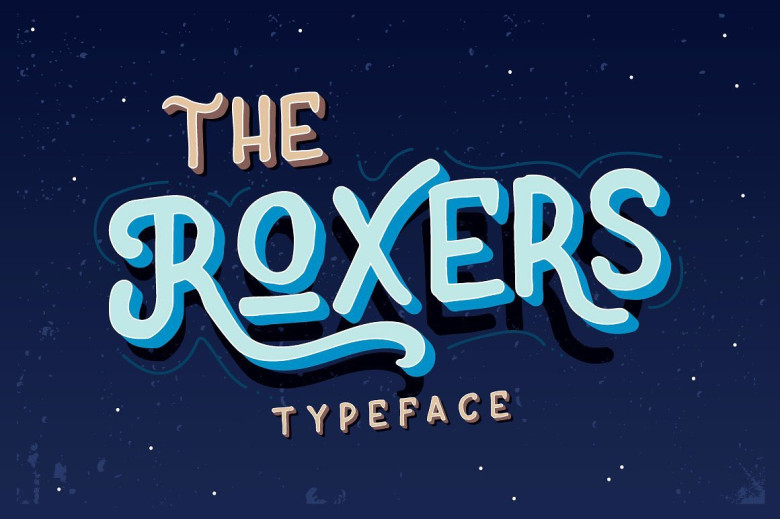
The Roxers Typeface
Introducing The Roxers! It is designed by Fusion Labs, this is a premium font, are sold on creativemarket, but it was great, it is free today for download. The Roxers is a new handmade display font, this font intended to use in retro and vintage design styles. The Roxers suitable for any design needs as vintage and retro looks like, Such as vintage invitation design, branding, logotype design, advertising, invitation, art quote, book cover, wedding invitation, special events, birthday, custom mug, pillow, t-shirts, any lettering needs and more. The Roxers Typeface available in two style, regular and rough.